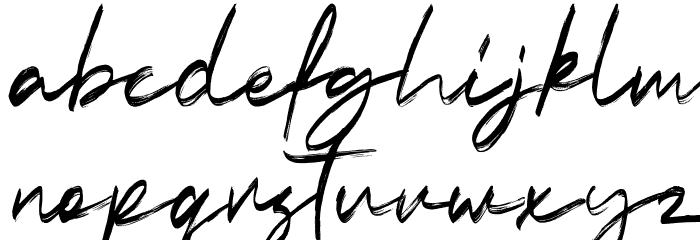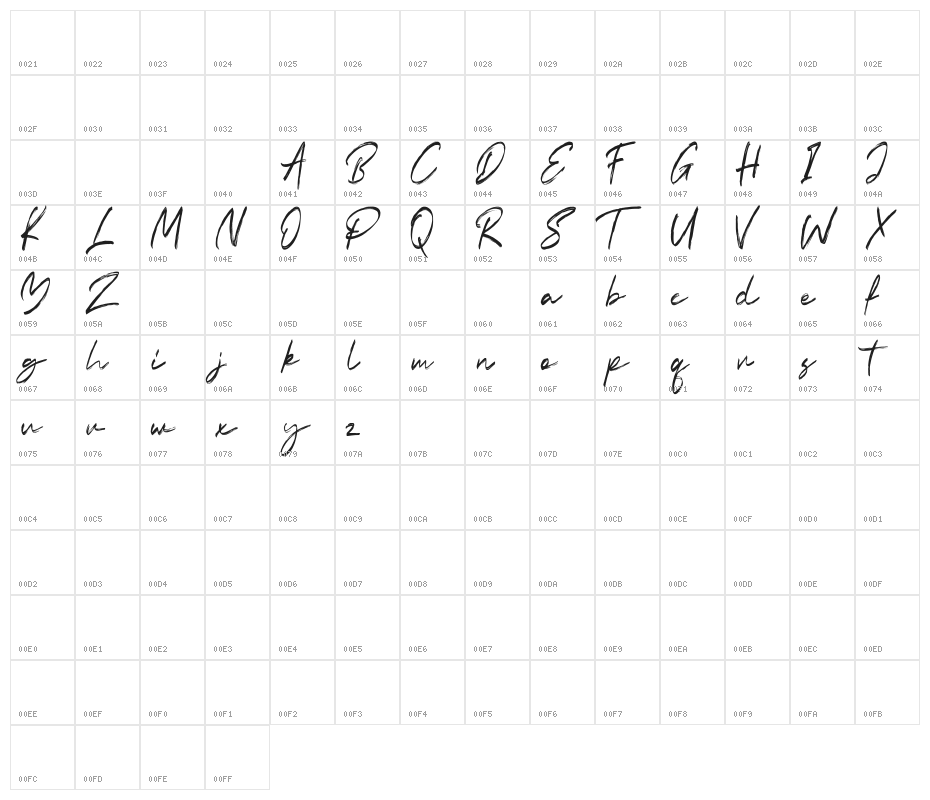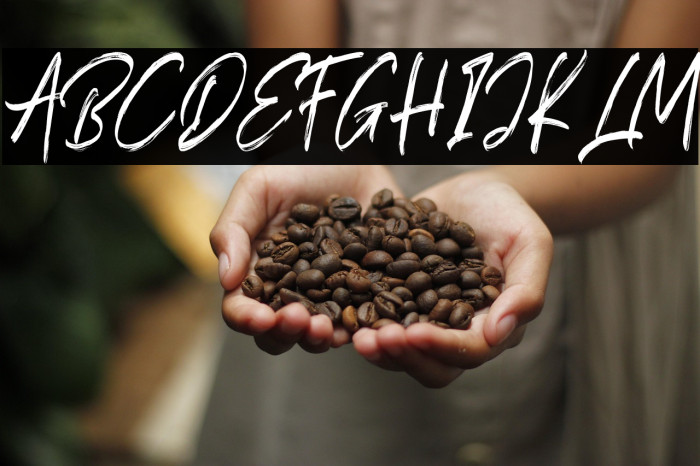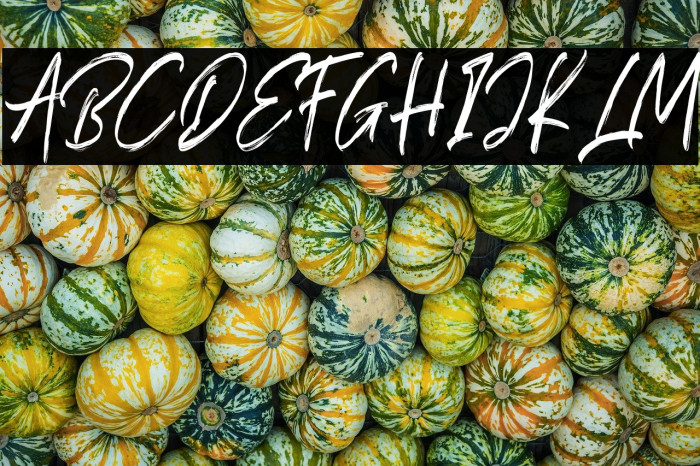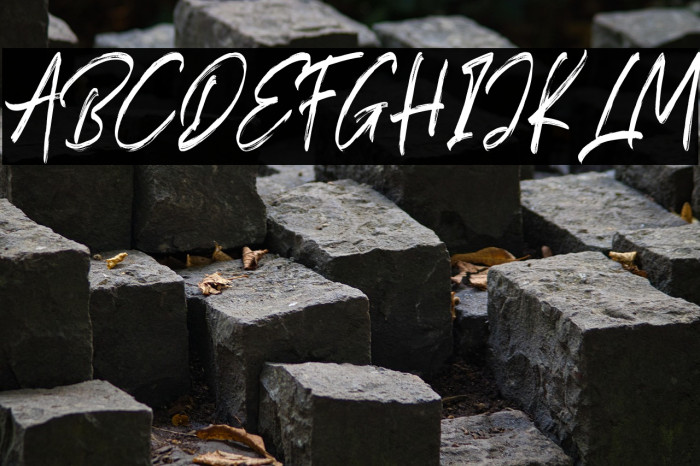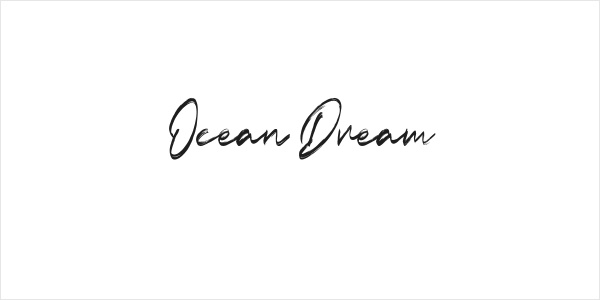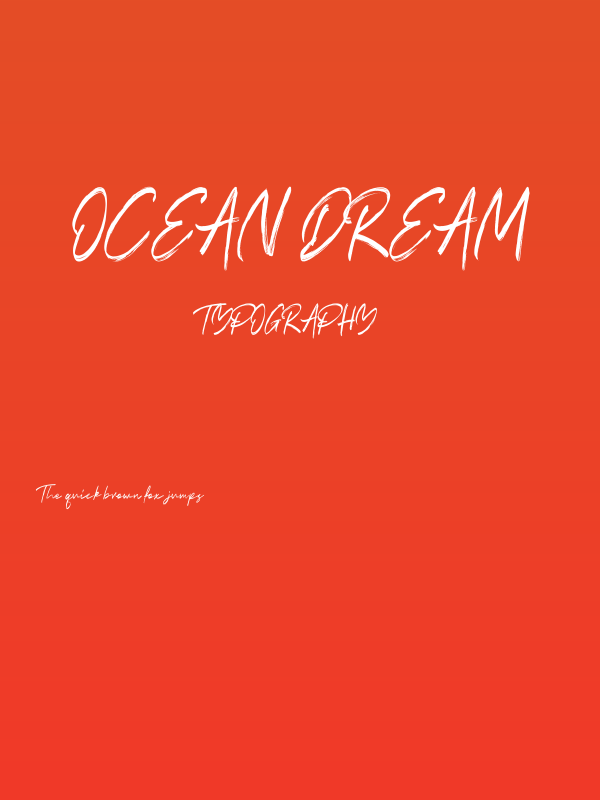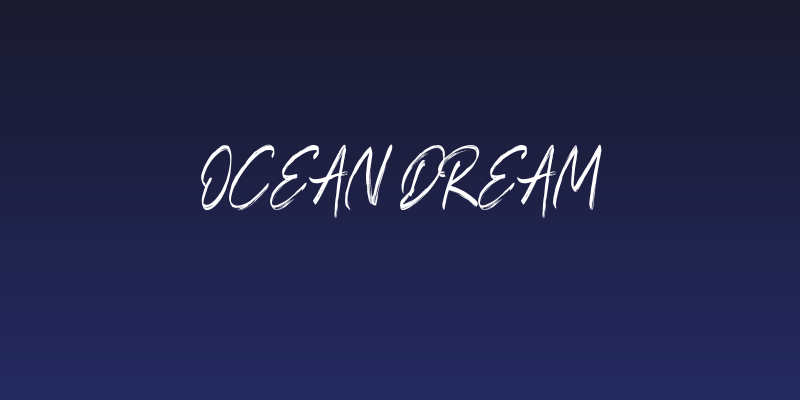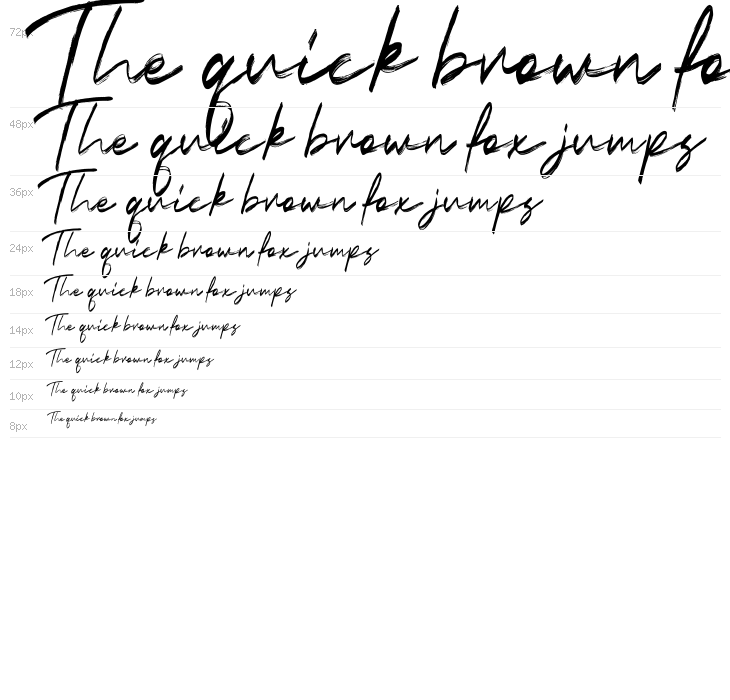
Ocean Dream Font
This font exudes a dynamic and expressive style, characterized by its fluid, brush-like strokes that convey a sense of movement and energy. The letters are crafted with varying thicknesses, creating a lively rhythm and a sense of spontaneity. The uppercase letters are bold and assertive, while the lowercase letters maintain a graceful flow, enhancing the overall aesthetic. The font's organic and hand-drawn appearance makes it ideal for projects that require a personal touch or an artistic flair. Its unique style captures attention and adds a creative edge to any design.
A dynamic, brush-style font with expressive, fluid strokes.
- Font: Ocean Dream
- Proposed Projects: Ideal for artistic projects, branding, packaging, and creative posters.
- Category: Handwritten
- Use Case: Logos, Headlines, Artistic designs